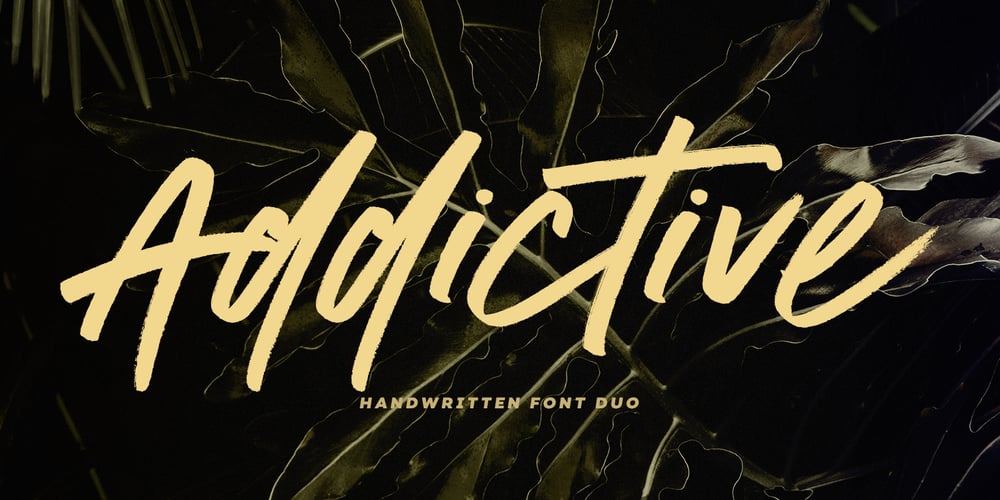
Addictive Font Family was designed by Michael Mervinetsky and published by Studio&Story. Addictive contains 2 styles and family package options. Addictive font duo is a sophisticated & contemporary, hand-made script font. With personal charms and character. allow you to create flowing hand-lettering.Addictive fonts are designed to be a winning combination. this font will perfect for many different project, Designed to feel comfortable with variety projects including advertising, campaigns, poster design, wedding, branding, logo, fashion, magazines, social media. Here is what you get in the Addictive package: 1. Addictive • A hand-made High quality script font containing upper & lowercase characters, numerals and a large range of punctuation + OpenType features (Ligatures&Alternates). 2. Addictive Caps • A bold hand-made brush font containing upper & lowercase characters, numerals and a large range of punctuation. Creates a perfect pairing contrast with the Addictive Script Both fonts Include multilingual support: English, Italian, French, Polish, German, Swedish, Spanish, Dutch, Portuguese, Norwegian, Malaya, Indonesian, Finnish, Filipino. Malaya. TTF and OTF files are included for both fonts. Access all OpenType features alternates&Ligatures, you need a program that supports OpenType features such as Adobe Illustrator, Adobe Photoshop, Microsoft word and Etc.. Thanks for looking If you have any questions about license or anything else,feel free to leave a comment or send me a message. I’m always more than happy to help:) hope you enjoy! Michael